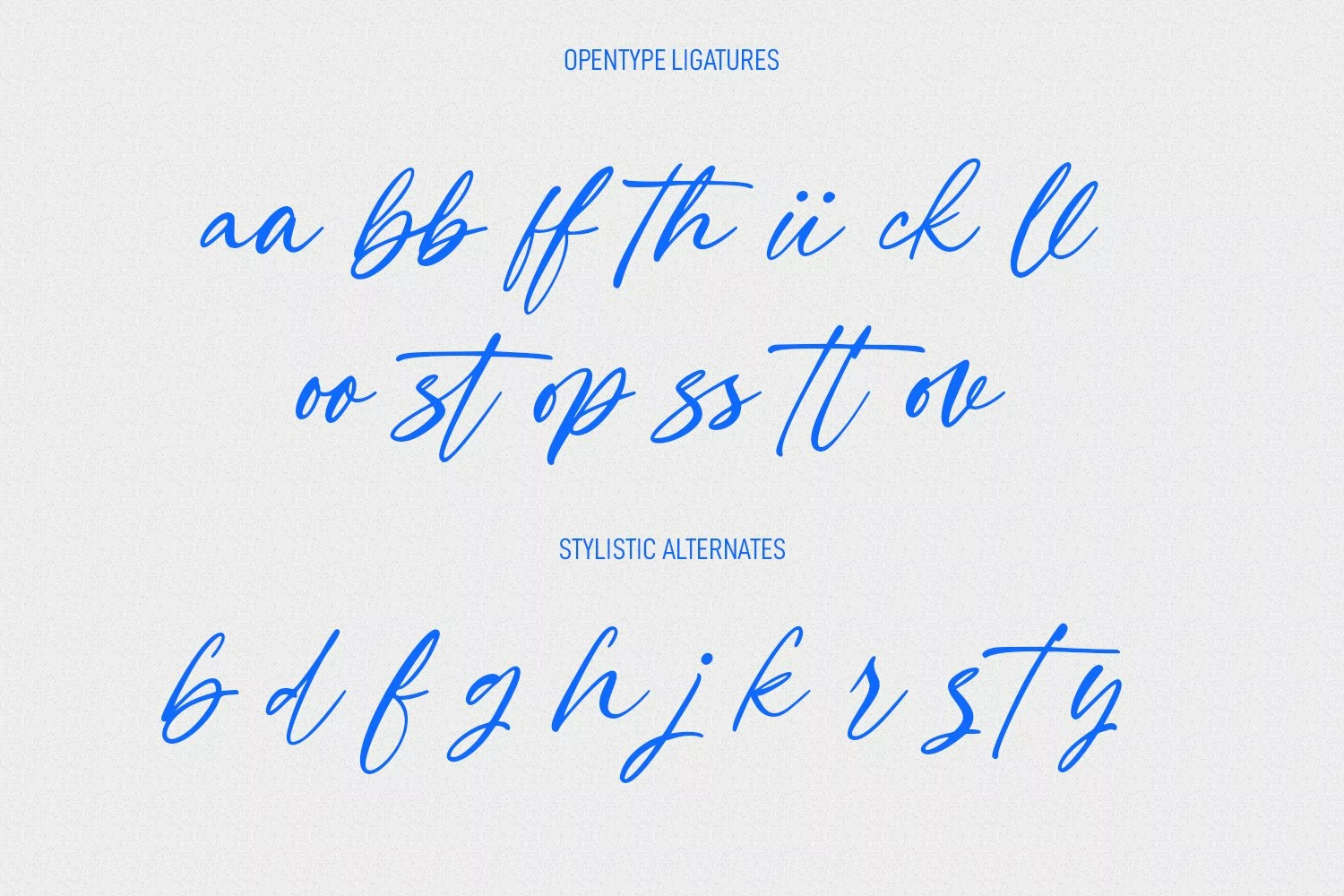
Counter Ropwells is an expressive signature script font. With light ink-is contrast stroke, fun character with a bit of ligatures and alternates. To give you an extra creative work. Counter Ropwells font support multilingual more than 100+ language. This font is good for logo design, Social media, Movie Titles, Books Titles, a short text even a long text letter and good for your secondary text font with sans or serif. Make a stunning work with Counter Ropwells font.
Counter Ropwells